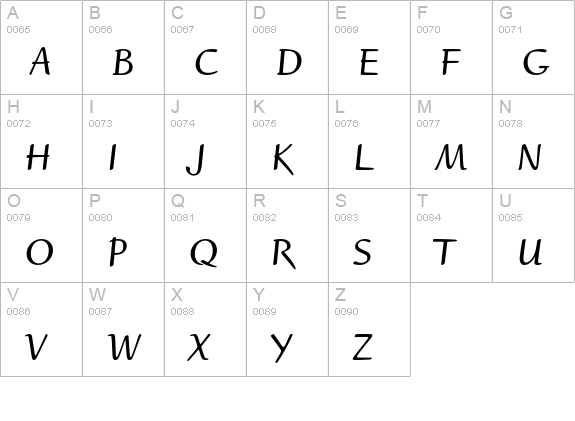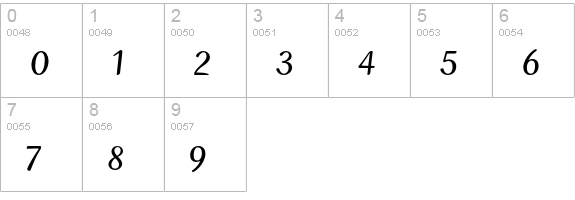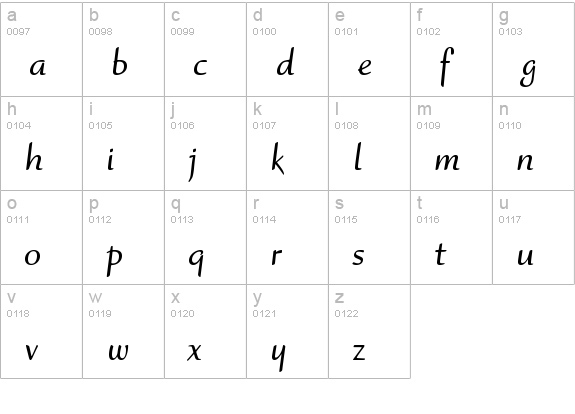
Ruzicka Freehand LH Bold Font Details
Ruzicka Freehand LH Bold is a strong, high-contrast variant in the Ruzicka typeface family \xE2\x80\x94 well suited to headlines, attention-grabbing titles, and strong calls-to-action.
Ruzicka Freehand LH Bold font is a stunning and versatile typeface that exudes a sense of creativity and individuality. Its bold and expressive strokes make it perfect for adding a touch of personality to any design project. Whether you are working on a poster, logo, or web design, Ruzicka Freehand LH Bold font will surely make a statement. What sets this font apart is its unique hand-drawn style, giving it a free-spirited and organic feel. The irregular lines and playful curves add a dynamic and lively touch to any text. Ruzicka Freehand LH Bold font is perfect for projects that require a touch of whimsy and charm. Best of all, Ruzicka Freehand LH Bold font is freely available to download at FontsMarket.com. This means you can easily access this beautiful typeface and use it in your projects without any restrictions. So go ahead and unleash your creativity with Ruzicka Freehand LH Bold font today!